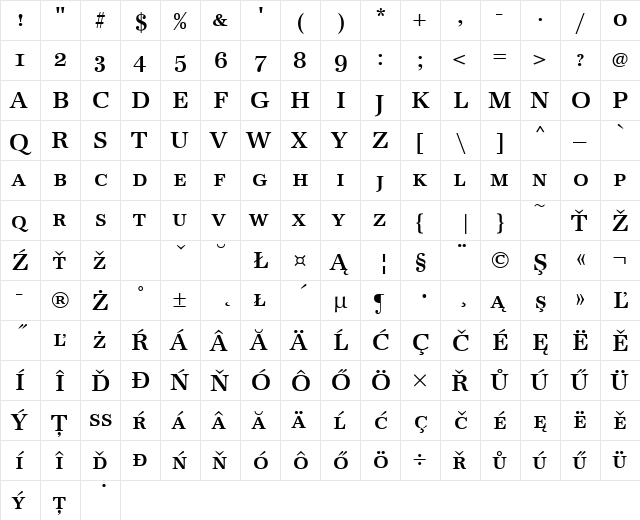
URWAntiquaSCTEEMed Regular
Design Context for URWAntiquaSCTEEMed Typeface
URWAntiquaSCTEEMed offers clean, dependable letterforms without strong stylistic allegiance, making it a practical choice for designers who need flexibility.
Pro Tip: Use URWAntiquaSCTEEMed in both headline and body roles to test its range before committing to a single application.